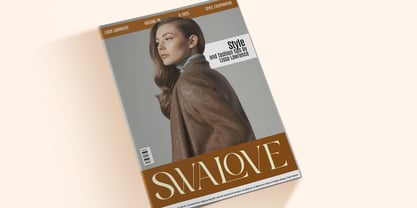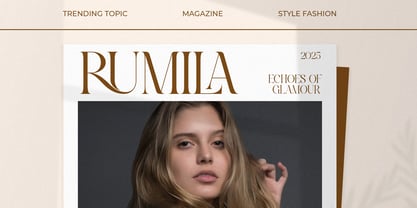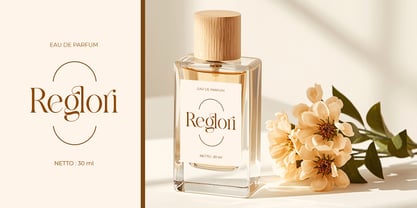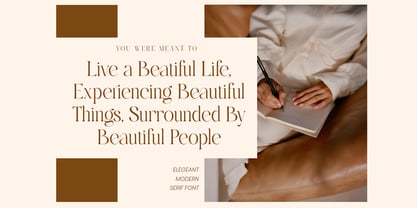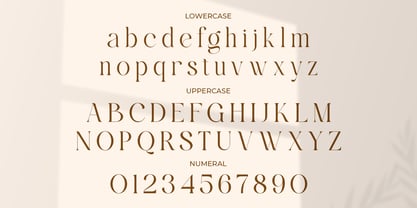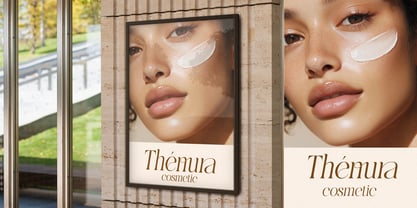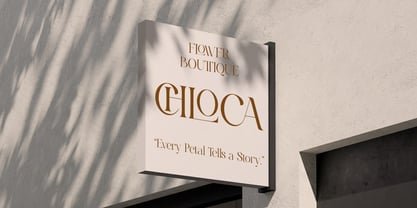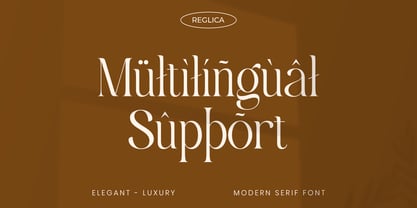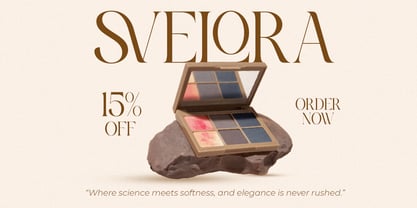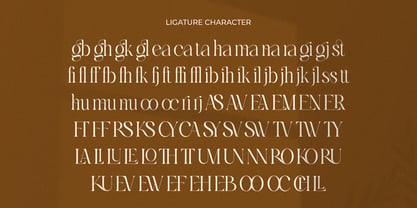
Reglica
by Qweera Studio
The Reglica Font Family was designed by Idhham Cholid Rikzano Yahya and published by Qweera Studio. Reglica contains 2 styles and family package options. More about this family
Reglica is a modern elegant serif featuring refined contrast and sophisticated curves. Designed for luxury branding and editorial typography, it delivers premium elegance with professional structure. With alternates, ligatures, and multilingual support, Reglica offers flexibility for branding, packaging, and editorial layouts. Ideal for designers seeking modern luxury serif typography. Features Alternates Ligatures Multilingual support Professional kerning Elegant contrast Specifications Language Support: Western, Central Europe Features: Alternates, Ligatures Recommended For Luxury branding, editorial typography, packaging design, fashion identity, boutique logo systems.
Designers: Idhham Cholid Rikzano Yahya
Foundry: Qweera Studio